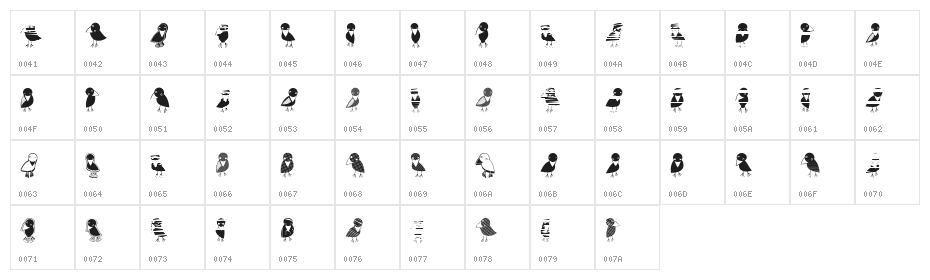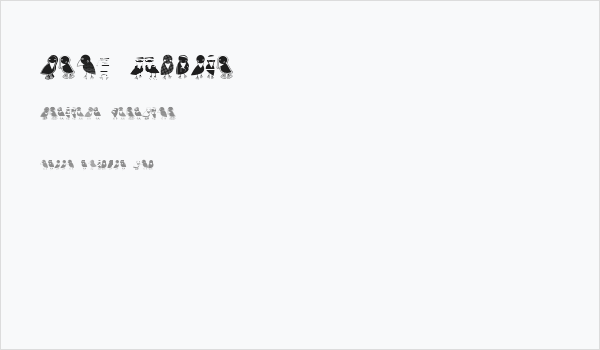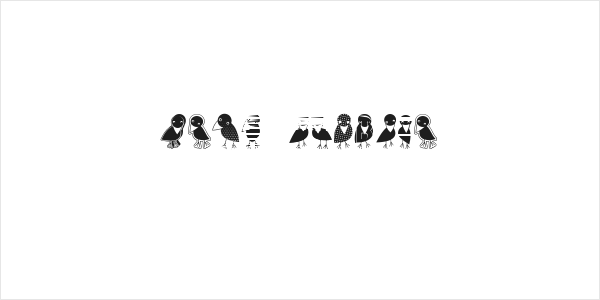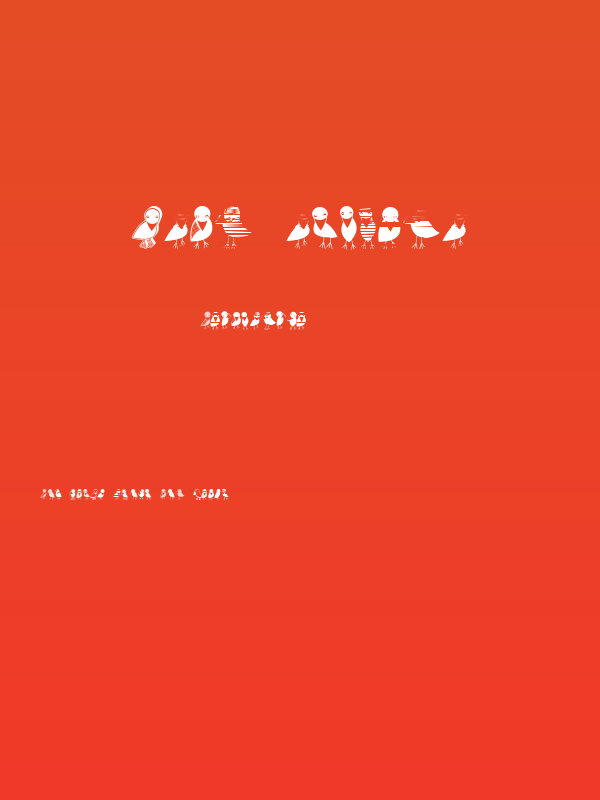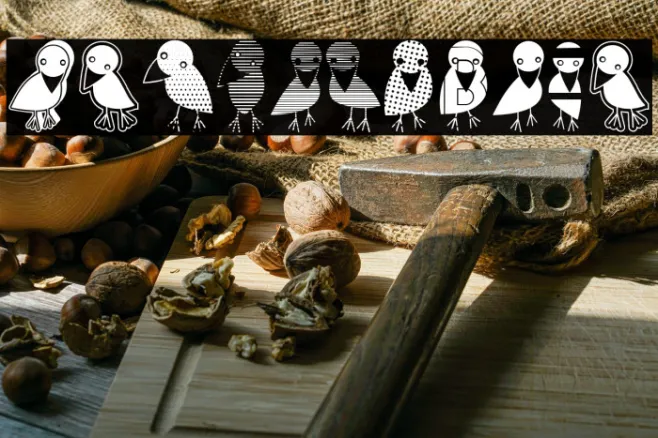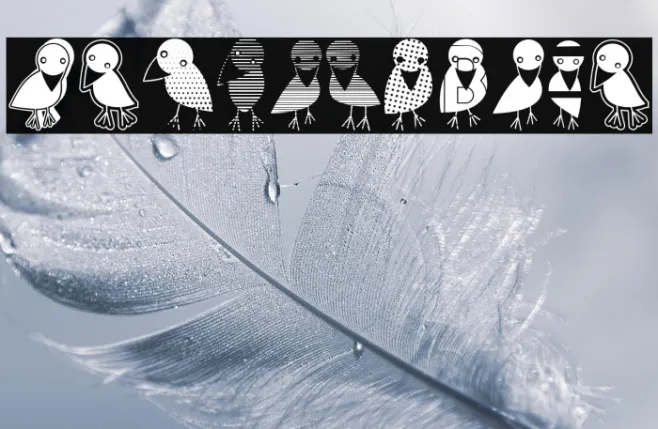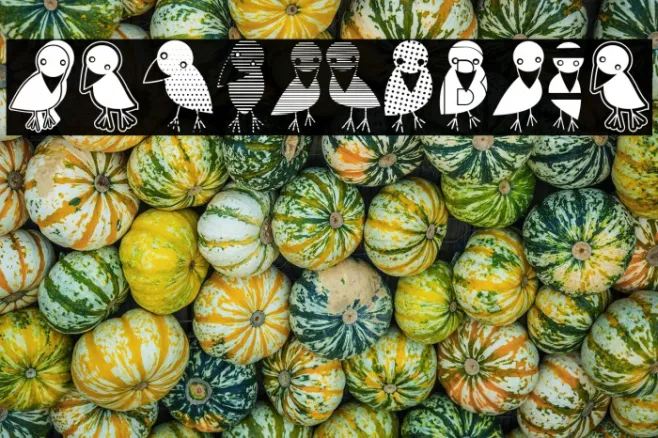
Crow Regular Font
Crow Regular Description
A playful, decorative font composed of stylized crow illustrations representing each character, featuring bold black and white shapes, geometric patterns, and whimsical details. Each letter and symbol is depicted as a unique bird, with variations in fill, stripes, and dots for distinction.
| Overall Style | Decorative, Playful, Whimsical |
| Use Case | Logos, Posters, Headlines, Children’s materials |
| Proposed Projects | Children’s books, playful branding, posters, greeting cards, educational materials, creative invitations. |